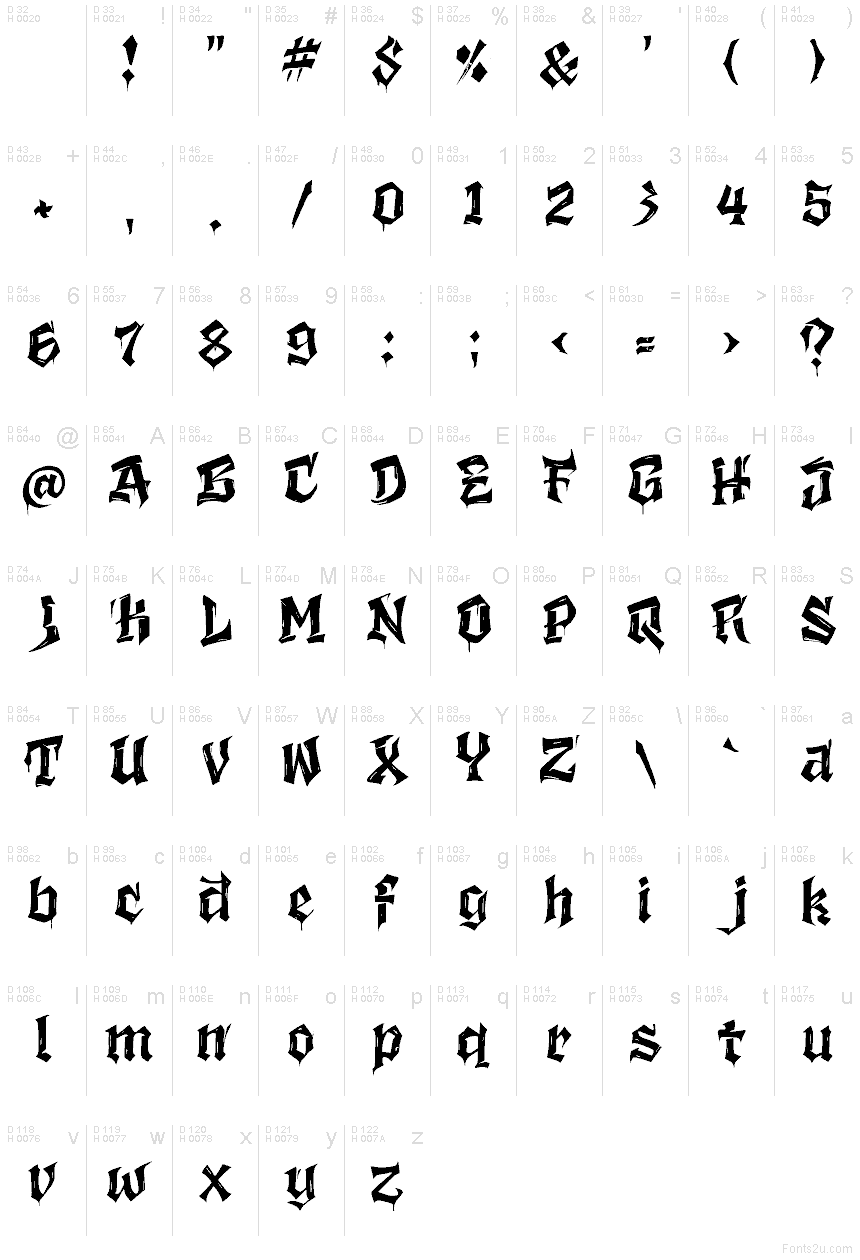
The Golden Blade
The Golden Blade font by BlackFridayFont FMF is a free modern gothic display font. Built around dagger-like terminals and fractured, chiseled strokes, it slices across the page with dense black shapes and tight rhythm. The verticals feel hammered from steel, while the angular spurs add a gritty, ink-slashed texture that reads loud at a glance yet keeps letters cleanly separated.
Using The Golden Blade, headlines and wordmarks snap with menace and swagger—great for metal band logos, game titles, horror posters, tattoo studio branding, streetwear graphics, and festival signage. This free font thrives oversized; let it breathe and pair with a clean geometric sans for body copy to sharpen contrast and keep layouts legible.